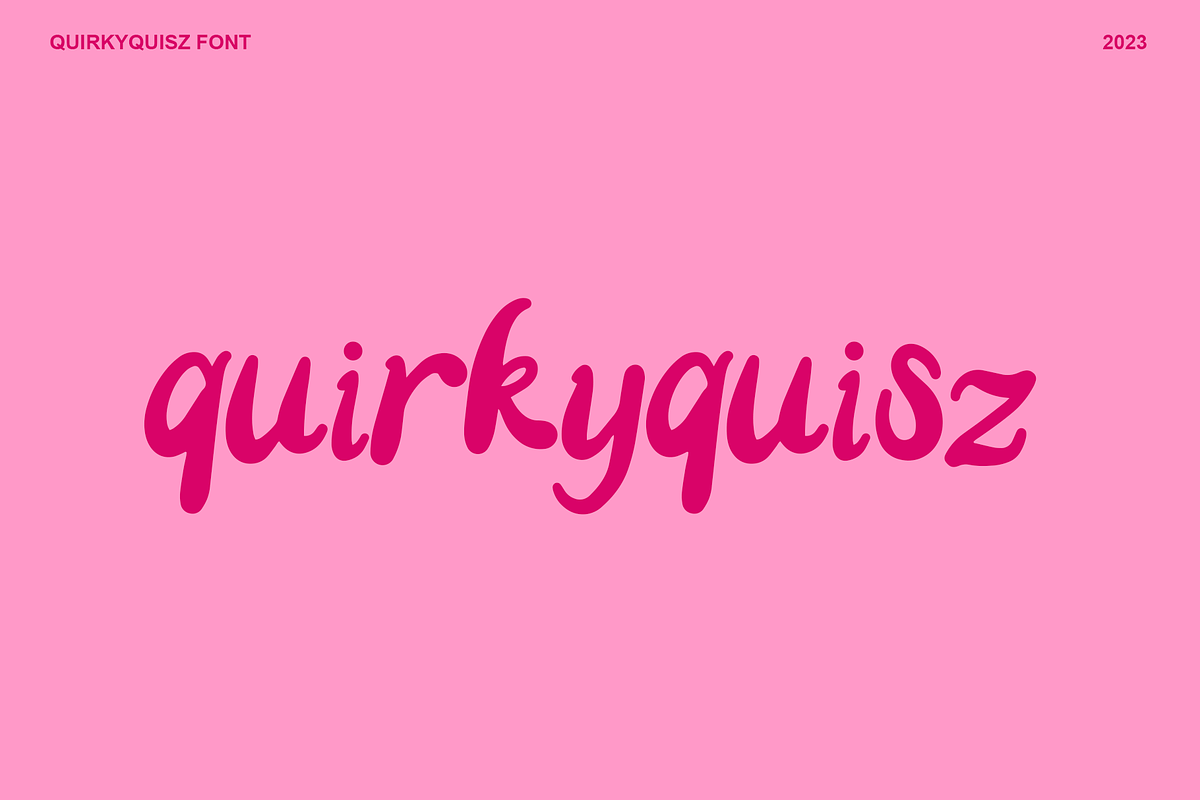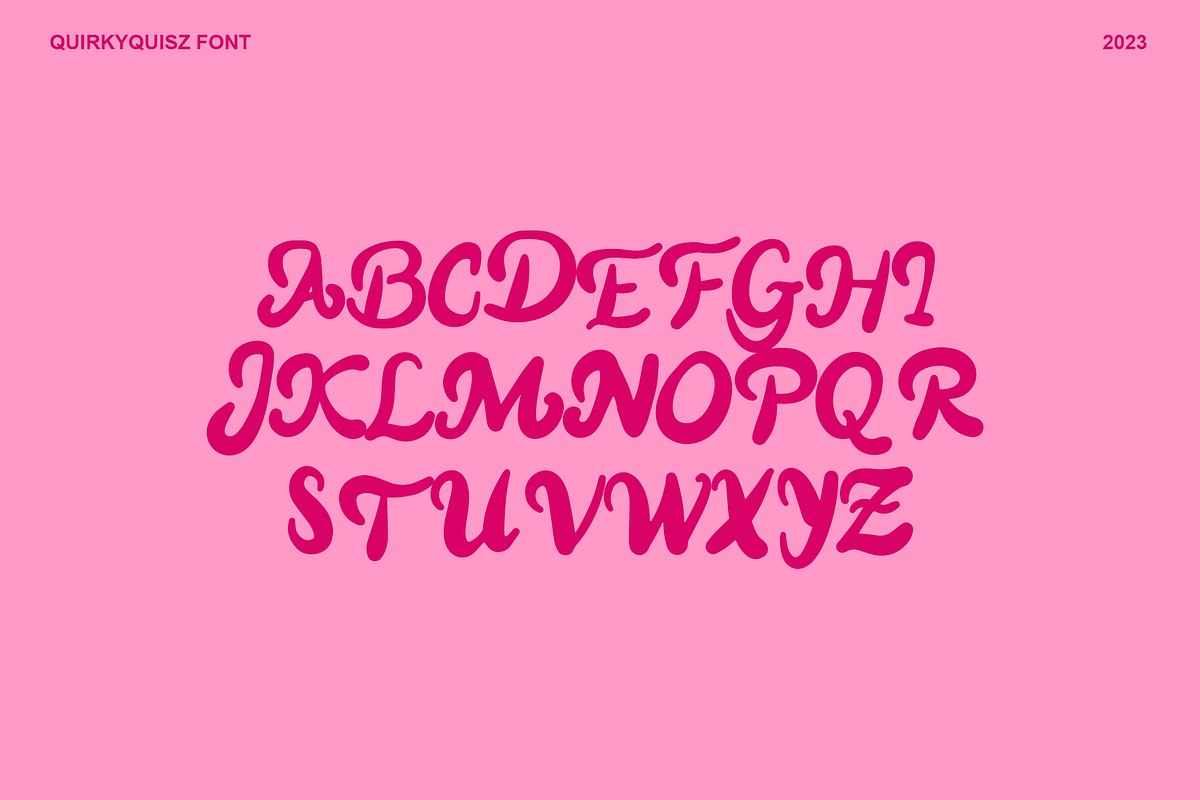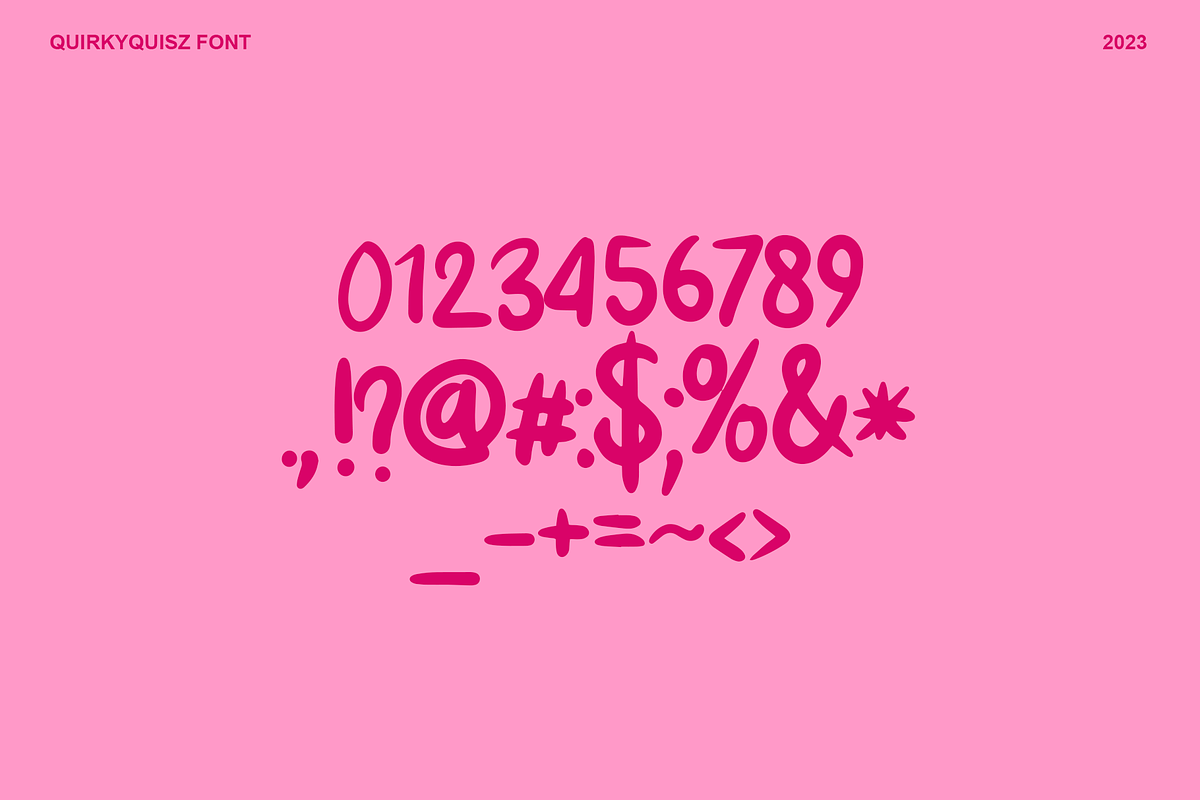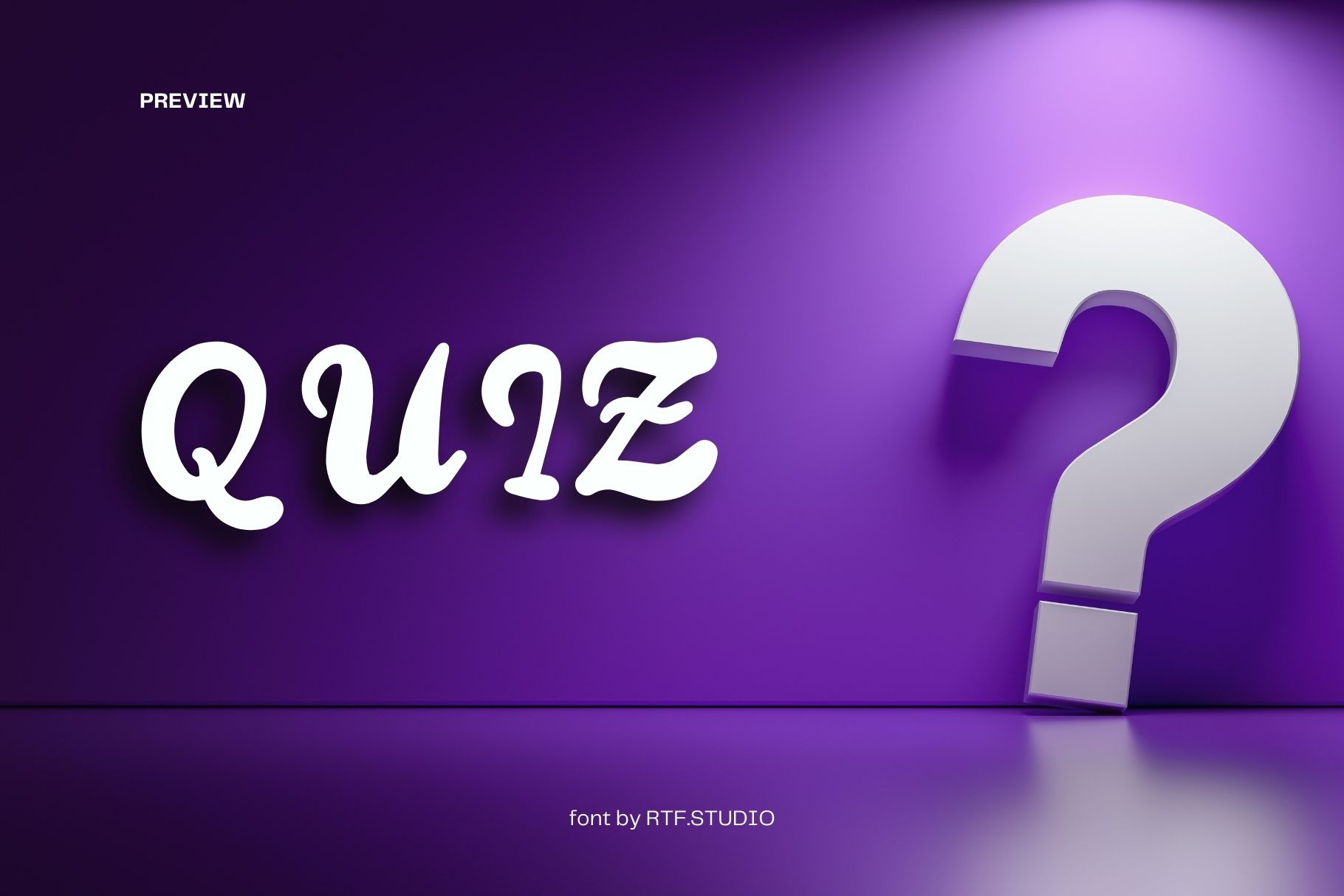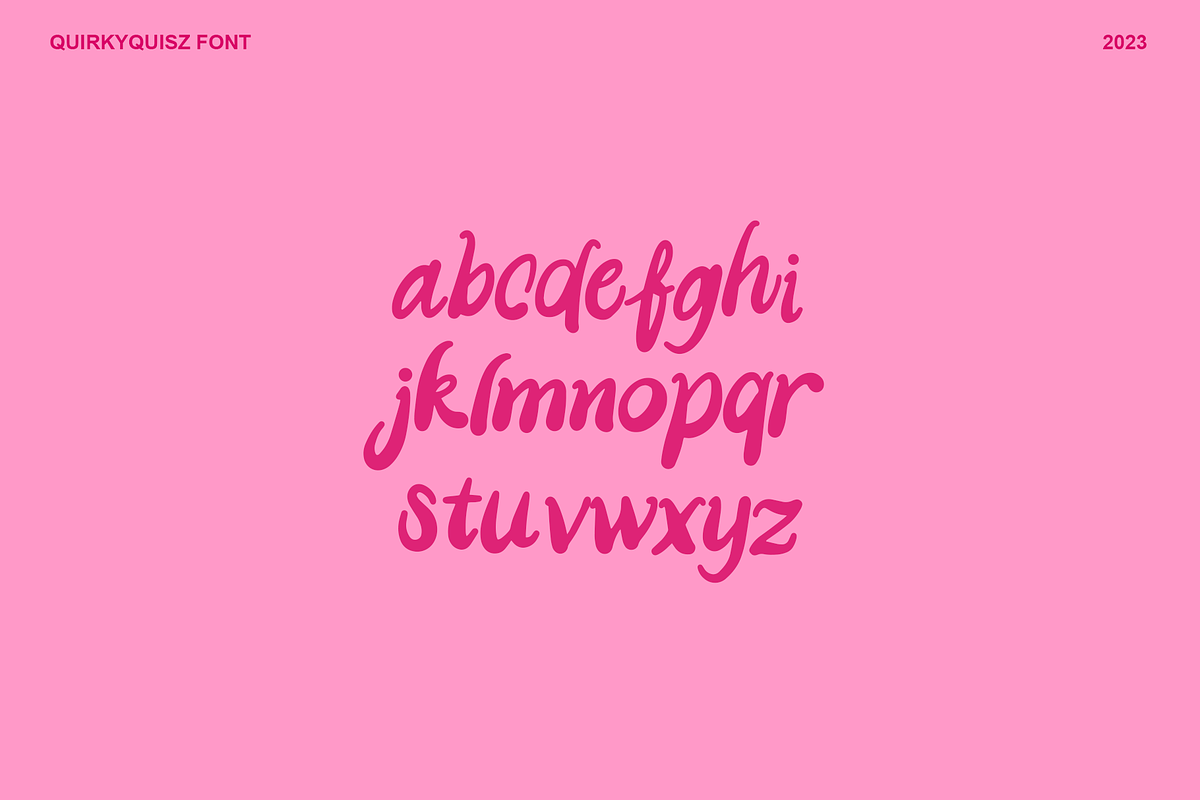
Quirkyquisz Handwriting Font
Quirkyquisz Handwriting Font with a funny character . Use this display font to add a special funny and feminine touch to any design idea you can think of!
Great for use to :
- Logo,
- Sticker,
- Packaging design,
- Cricut Project,
- headlines,
- brand identity,
- t-shirt
- apparel industry,
- posters,
- magazines,
- books,
- YouTube,
- Instagram,
- websites or
- your creative design projects.